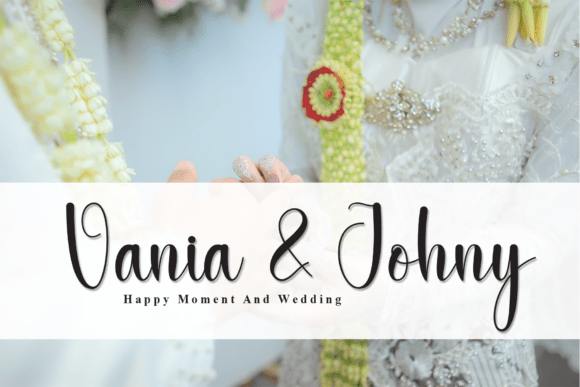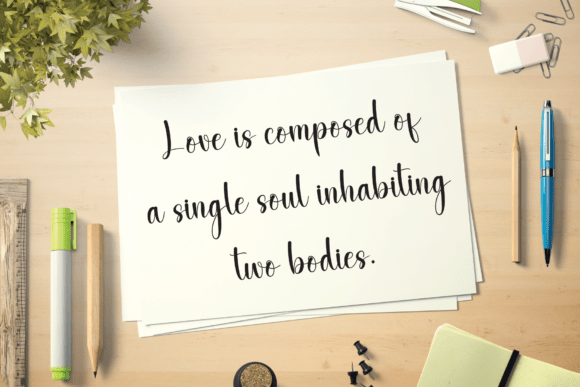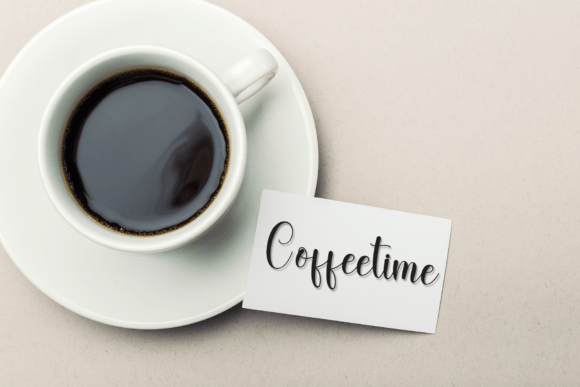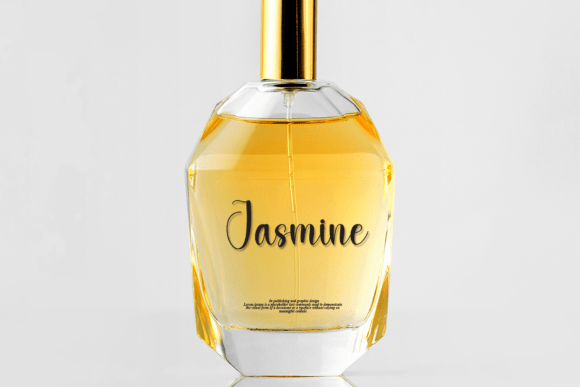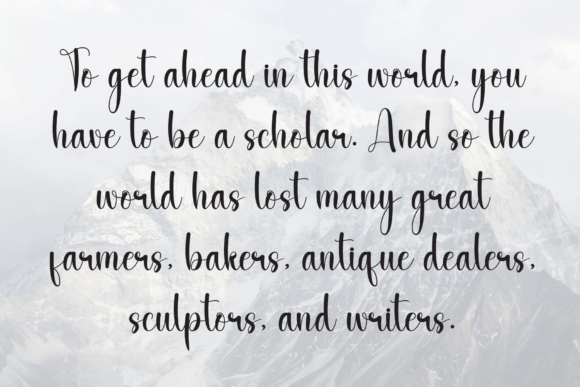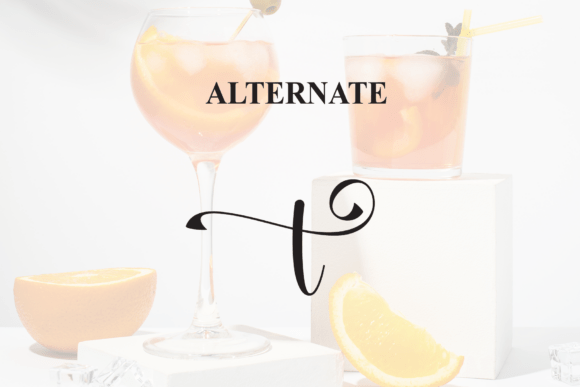
Cocktail Font: The Perfect Blend of Style and Sophistication
In the world of typography, fonts play a crucial role in conveying the tone and personality of a brand or design. For those looking to add a touch of elegance and whimsy to their work, the Cocktail font is an excellent choice. This vibrant, modern handwritten font is designed to capture the lively, sophisticated spirit of a night out and contemporary leisure.
A Modern Script Style
Cocktail is a new script style that features robust, smooth strokes and elegant, exaggerated connecting lines. This unique combination gives the font a dynamic, high-energy flow that’s perfect for designs that need to make a statement. The clean weight and clear letterforms ensure exceptional readability, making it an excellent choice for a variety of applications, from bar menus and beverage branding to restaurant signage and social media graphics.
One of the standout features of the Cocktail font is its swooping swash terminals. Particularly noticeable on the initial ‘C’ and final ‘l’, these terminals provide an eye-catching, custom-lettered look that’s sure to elevate any design. The font’s decorative flair is balanced by its clean lines and clear letterforms, making it both stylish and legible.
Cocktail is perfectly suited for a range of design applications, including:
- Bar menus: Add a touch of sophistication and whimsy to your menu with the Cocktail font.
- Beverage branding: Create a brand identity that’s both stylish and fun with this modern script font.
- Restaurant signage: Make a statement with eye-catching signage that showcases your restaurant’s personality.
- Social media graphics: Add a touch of elegance and sophistication to your social media graphics and stand out from the crowd.
- Event invitations: Create invitations that are both stylish and fun with the Cocktail font.
Why Choose Cocktail?
So why choose the Cocktail font for your next design project? Here are just a few reasons:
- Unique and stylish: The Cocktail font offers a unique and stylish alternative to more traditional fonts.
- Exceptional readability: Despite its decorative flair, the Cocktail font is exceptionally legible, making it perfect for a range of applications.
- Versatile: The font is versatile and can be used for a range of design projects, from branding and signage to social media graphics and event invitations.
- Confident and sophisticated: The Cocktail font exudes confidence and sophistication, making it perfect for designs that need to make a statement.
Tips for Using Cocktail
To get the most out of the Cocktail font, here are a few tips:
- Use it as a headline font: The Cocktail font is perfect for headlines and titles, where its decorative flair can really shine.
- Pair it with a sans-serif font: For body text, consider pairing the Cocktail font with a clean sans-serif font to create a stylish and legible contrast.
- Experiment with colors: The Cocktail font looks great in a range of colors, so don’t be afraid to experiment and find the perfect hue for your design.
In conclusion, the Cocktail font is a vibrant, modern handwritten font that’s perfect for designers and crafters looking to add a touch of style and sophistication to their work. With its unique blend of robust strokes, elegant connecting lines, and swooping swash terminals, this font is sure to make a statement. Whether you’re designing a bar menu, beverage branding, or social media graphics, the Cocktail font is an excellent choice. So why not give it a try and see how it can elevate your designs?